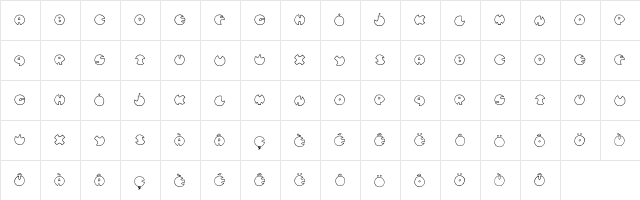
bulle de confiance Regular
Design Context for bulle de confiance Typeface
bulle de confiance is a composed and adaptable typeface that performs quietly and consistently across a wide range of design contexts.
Pro Tip: Pair bulle de confiance with a font of contrasting weight or personality to build a more expressive typographic hierarchy.